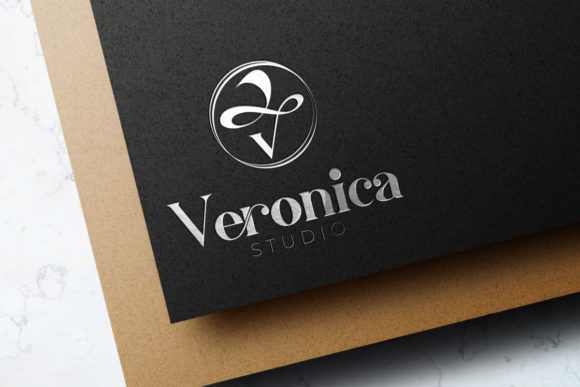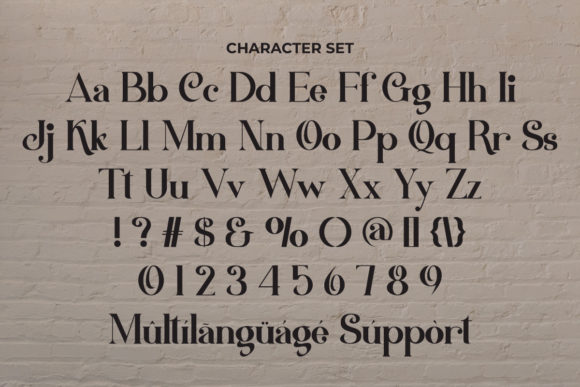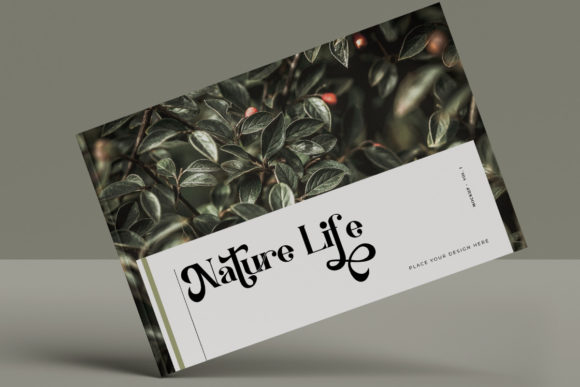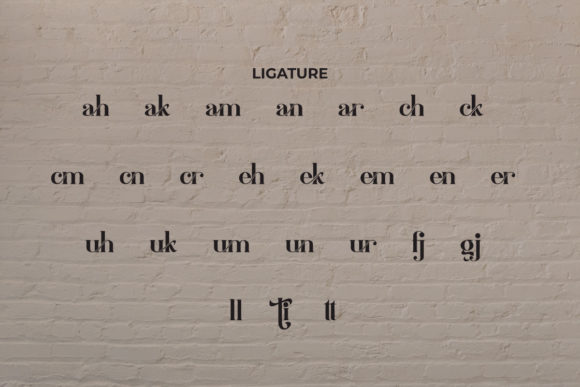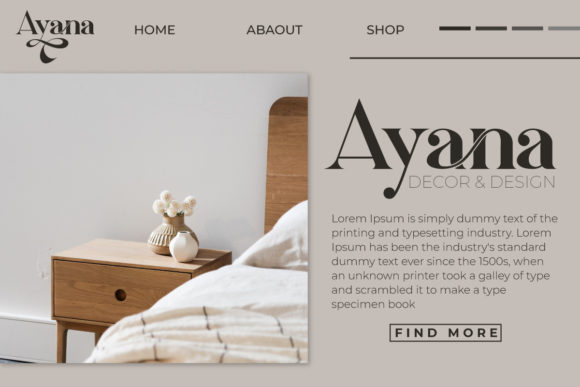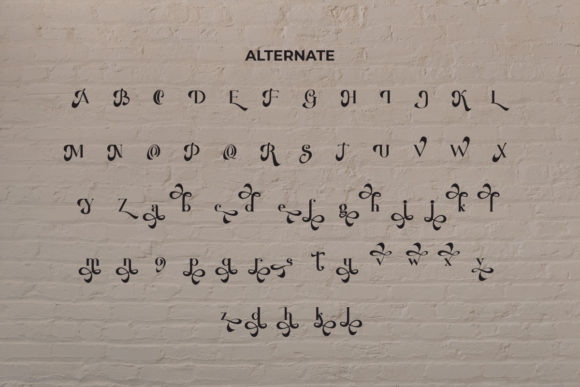
The Elegance of Bernardston Font: A Designer’s Delight
I still remember the design project that led me to discover the stunning Bernardston Font. I was working on a luxury brand’s branding materials, and I needed a font that exuded elegance and sophistication. After hours of scouring font libraries, I stumbled upon Bernardston, and it was love at first sight! ✨
• 💫 Elegant and stylish serif design
• 🌈 Highly versatile for various design projects, from luxury branding to wedding stationery
• 👍 Excellent for headlines, titles, and short paragraphs
• 🤔 May not be the best fit for body text or long paragraphs due to its elegant, yet delicate design
• ⚠️ Some users might find the font’s stylistic alternates and swashes overwhelming at first, but trust me, they’re worth exploring!
The Backstory of Bernardston Font
Legend has it that Bernardston Font was inspired by traditional English typography, with a modern twist. The font’s creator aimed to craft a typeface that exudes elegance, sophistication, and refinement. With its PUA encoding, Bernardston offers designers an effortless way to access a wide range of glyphs and swashes, making it a versatile addition to any design project.
Q: What is PUA encoding, and how does it benefit designers?
A: PUA (Private Use Area) encoding allows designers to access a wide range of glyphs, swashes, and stylistic alternates within a font, making it easier to create unique and customized designs.
Q: Is Bernardston Font suitable for body text or long paragraphs?
A: While Bernardston Font is elegant and stylish, it might not be the best fit for body text or long paragraphs due to its delicate design. It’s better suited for headlines, titles, and short paragraphs.